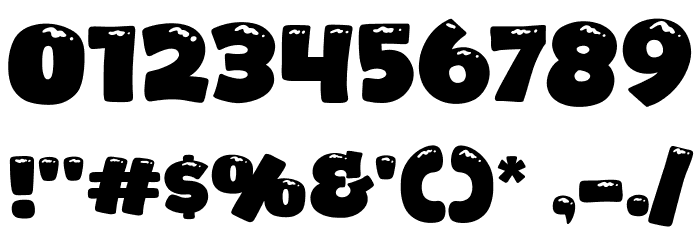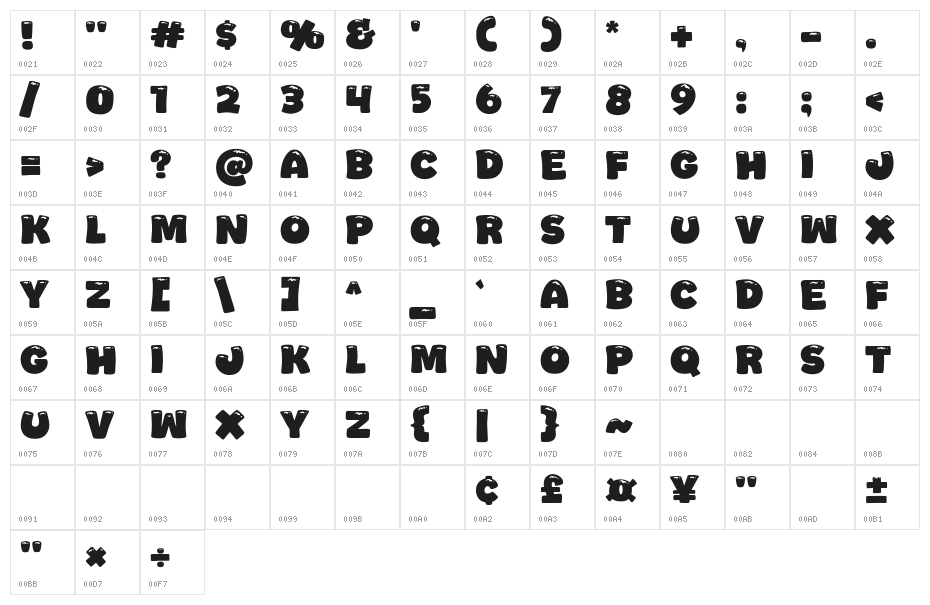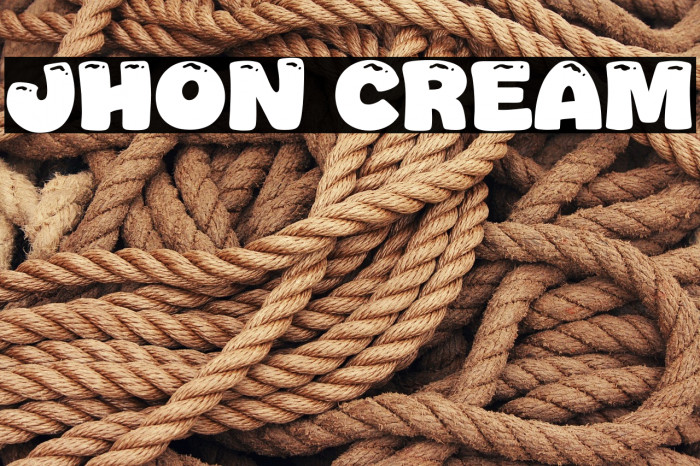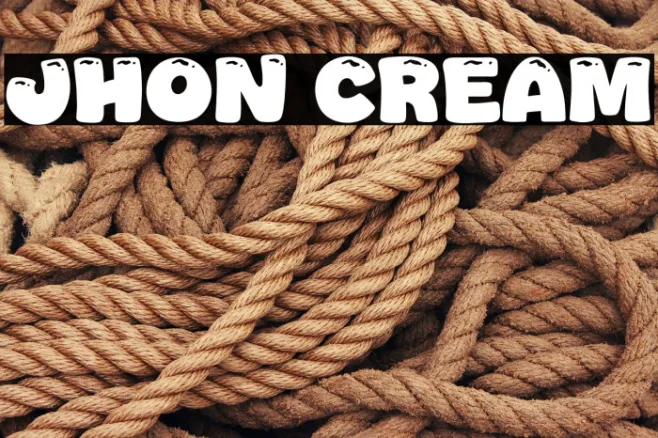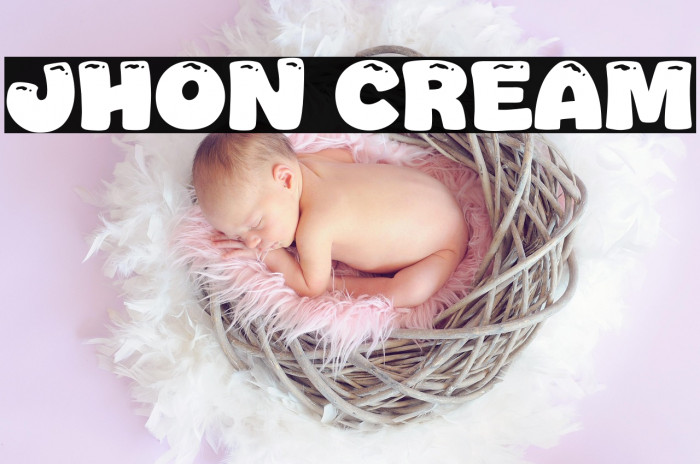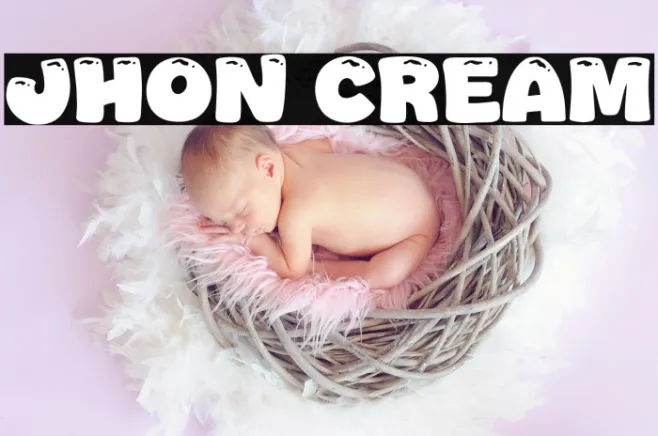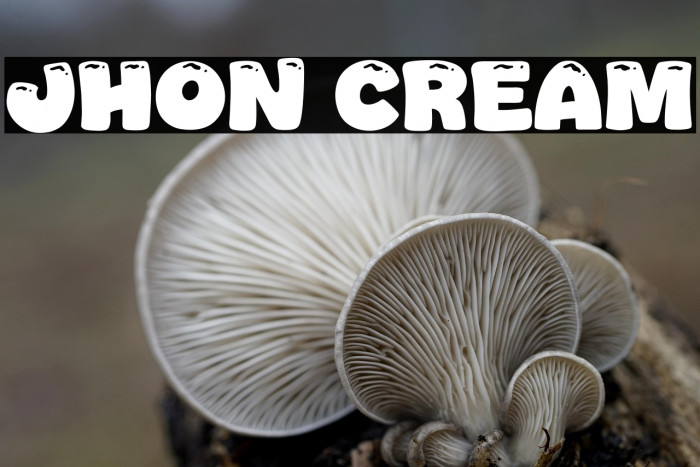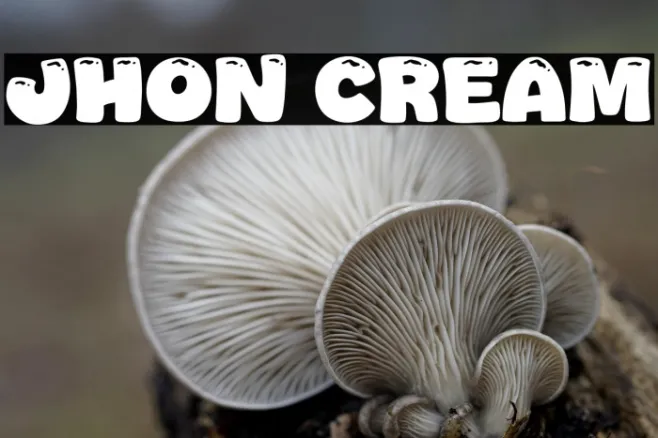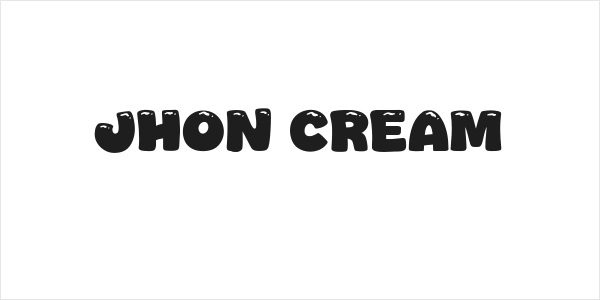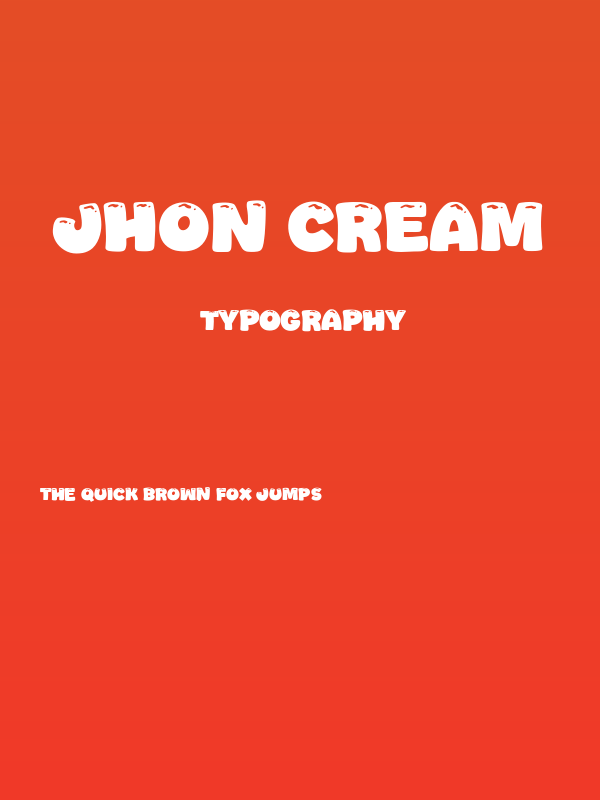
Jhon Cream Font
Jhon Cream Description
This playful and bold font features thick, rounded characters with a bubbly appearance, reminiscent of cartoon or comic styles. The letters have a consistent, heavy weight and are designed with a slight irregularity that adds a whimsical charm. The characters are closely spaced, enhancing the font's cohesive and compact look. The font's unique style is characterized by its high contrast between the thick strokes and the subtle, rounded edges, giving it a friendly and approachable feel. It's perfect for projects that require a fun and engaging visual impact.
| Overall Style | Playful, Cartoonish |
| Proposed Projects | Ideal for children's books, comic strips, playful branding, and eye-catching posters. |